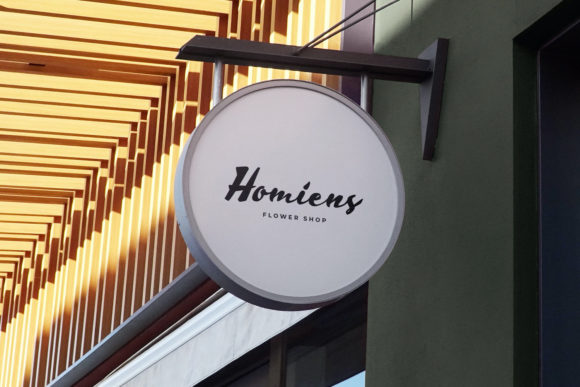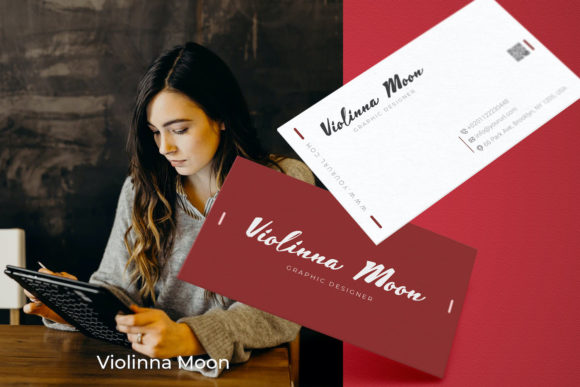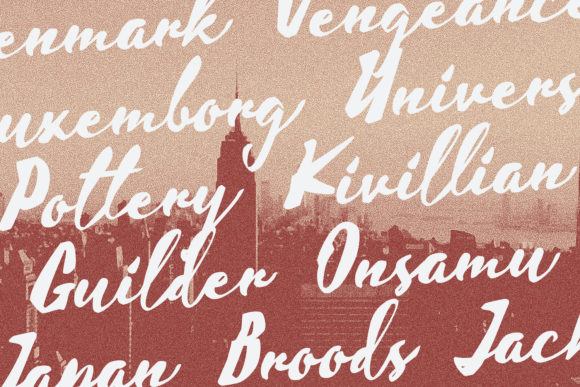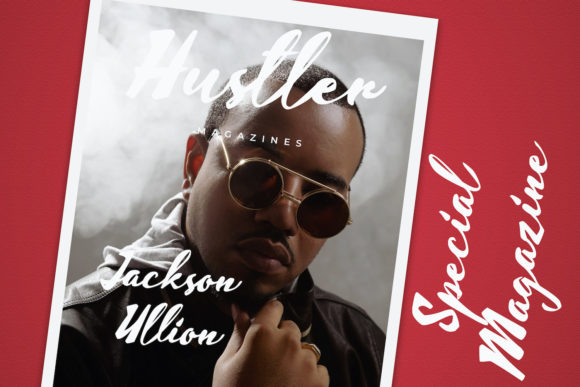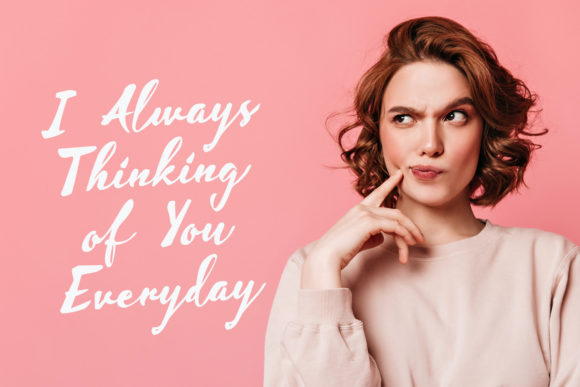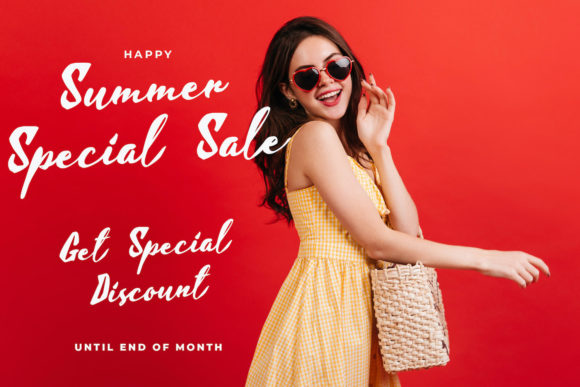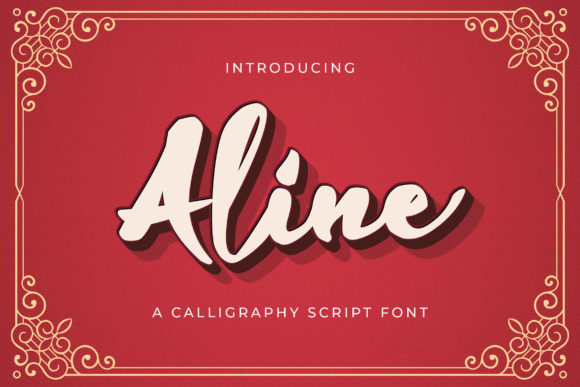
Aline Font: Elevate Your Designs with a Cool, Chic, and Cursive Handwritten Style
In the world of typography, fonts play a crucial role in conveying the tone and personality of a design. For designers and crafters looking to add a touch of elegance and sophistication to their projects, Aline Font is an excellent choice. This cool, chic, and cursive handwritten font is designed to make a statement, exuding confidence, strength, and dynamism.
The Characteristics of Aline Font
Aline Font is a carefully crafted typeface that boasts a unique blend of style and character. Its cursive handwritten design gives it a personal and approachable feel, making it perfect for a wide range of applications, from branding and advertising to packaging and digital media.
The font’s strong and confident appearance is achieved through its bold lines, flowing curves, and carefully considered letterforms. Each character is designed to work in harmony with the others, creating a sense of fluidity and continuity that draws the reader’s eye through the text.
The Benefits of Using Aline Font
So why choose Aline Font for your next design project? Here are just a few benefits of using this versatile and stylish typeface:
- Adds nostalgic character: Aline Font’s cursive handwritten design evokes a sense of nostalgia and timelessness, making it perfect for projects that require a touch of classic charm.
- Conveys confidence and strength: The font’s bold lines and dynamic letterforms give it a strong and confident appearance, making it ideal for projects that require a sense of authority and gravitas.
- Versatile and adaptable: Aline Font is a highly versatile typeface that can be used in a wide range of applications, from digital media to print materials.
- Easy to read: Despite its bold and dynamic design, Aline Font is surprisingly easy to read, making it perfect for body text as well as headlines and titles.
Using Aline Font in Your Design Projects
So how can you use Aline Font in your design projects? Here are a few ideas to get you started:
- Branding and advertising: Use Aline Font to create eye-catching logos, ads, and marketing materials that showcase your brand’s personality and style.
- Packaging design: Add a touch of elegance and sophistication to your product packaging with Aline Font’s cursive handwritten design.
- Digital media: Use Aline Font to create engaging and interactive digital content, such as social media graphics, blog posts, and website headers.
- Crafting and scrapbooking: Aline Font is also perfect for crafters and scrapbookers looking to add a personal touch to their projects.
Tips for Getting the Most Out of Aline Font
To get the most out of Aline Font, here are a few tips to keep in mind:
- Experiment with different sizes and colors: Aline Font looks great in a variety of sizes and colors, so don’t be afraid to experiment and find the combination that works best for your project.
- Pair with complementary fonts: Aline Font pairs well with a range of other fonts, so try combining it with complementary typefaces to create visual interest and contrast.
- Use it consistently: To get the most out of Aline Font, use it consistently throughout your design project to create a cohesive and unified look.
In conclusion, Aline Font is a cool, chic, and cursive handwritten typeface that is perfect for designers and crafters looking to add a touch of elegance and sophistication to their projects. With its strong and confident appearance, nostalgic character, and versatility, Aline Font is an excellent choice for a wide range of applications.